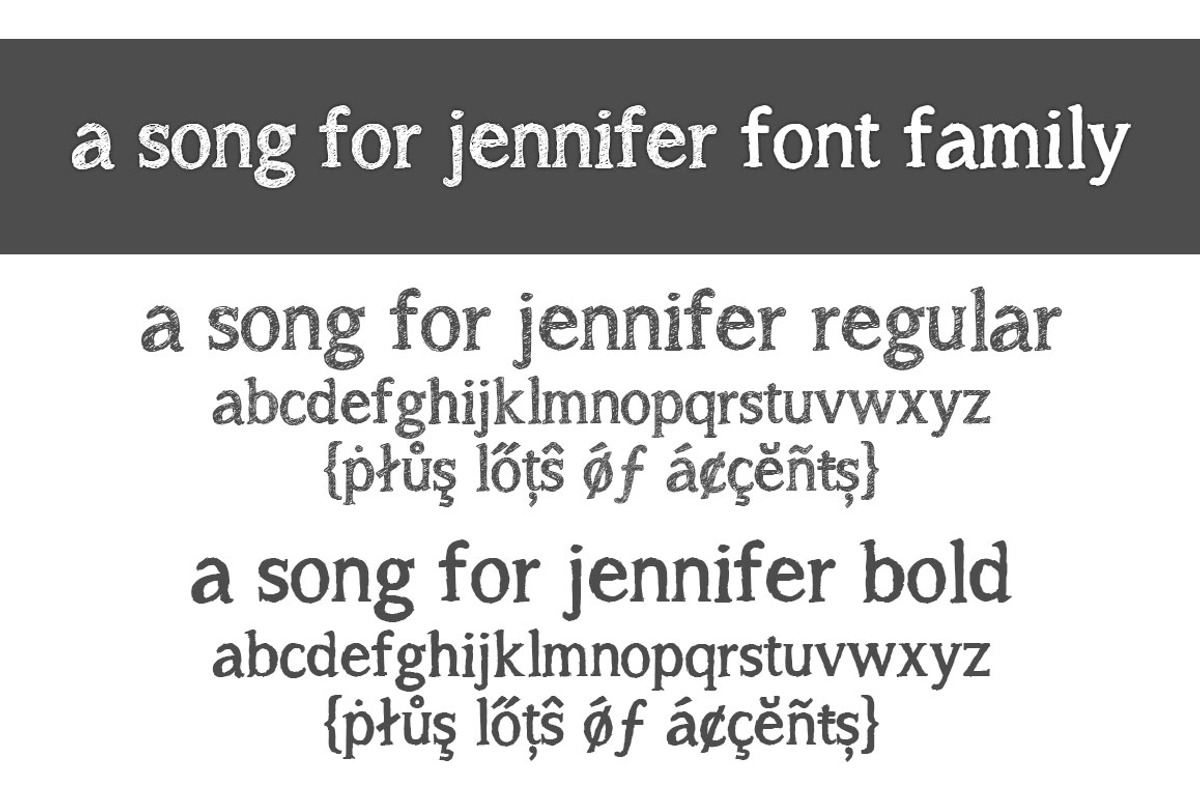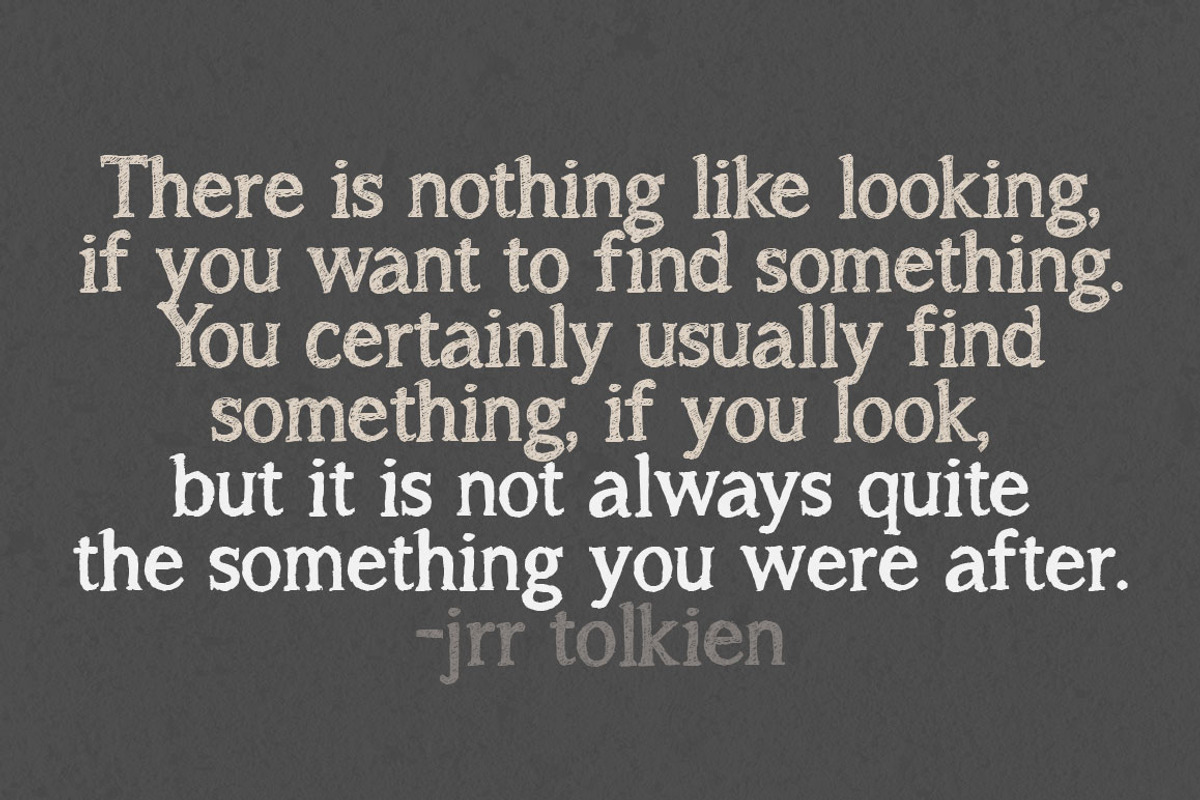
A Song for Jennifer Font Family
A Song for Jennifer Font Family by Brittney Murphy Design is a font selected for branding, posters, packaging, typography.
- This font family comes with a bold, solid version!
- a song for jennifer Regular
- a song for jennifer Bold
Why A Song for Jennifer Font Family is worth a look
A Song for Jennifer Font Family by Brittney Murphy Design fits naturally into Branding, posters, packaging, typography.